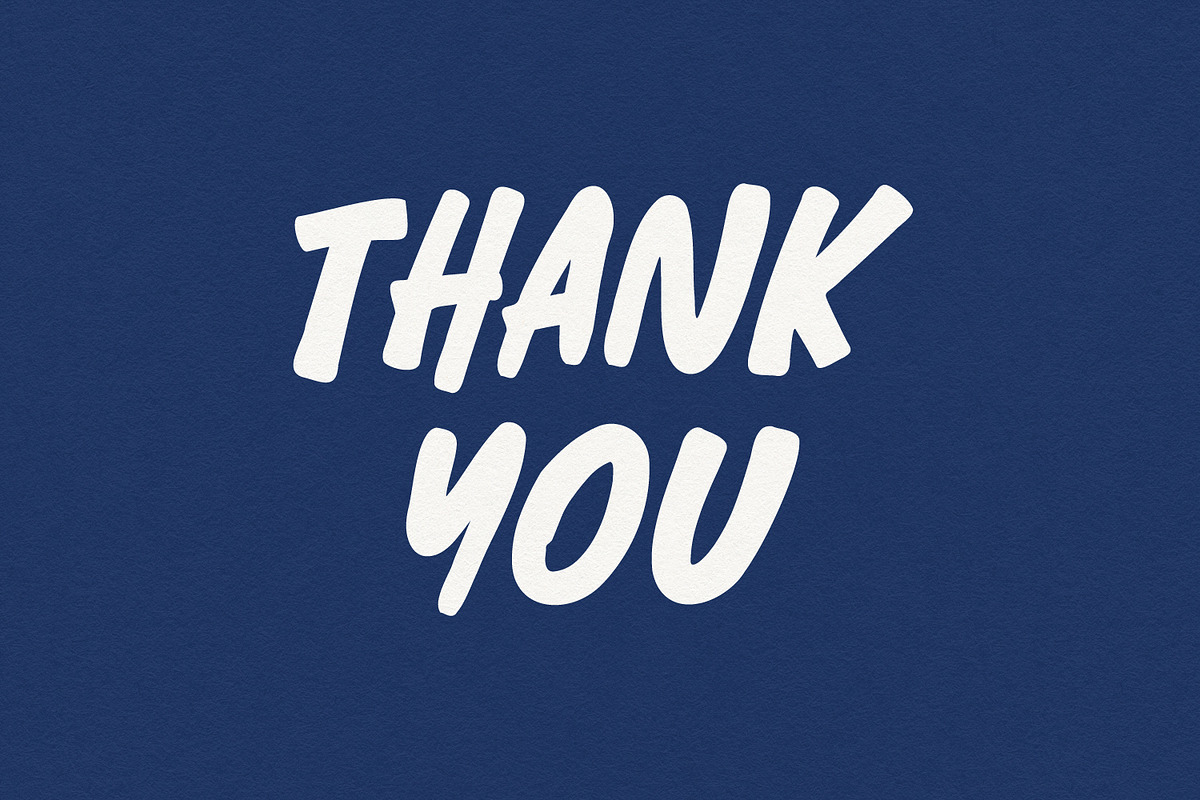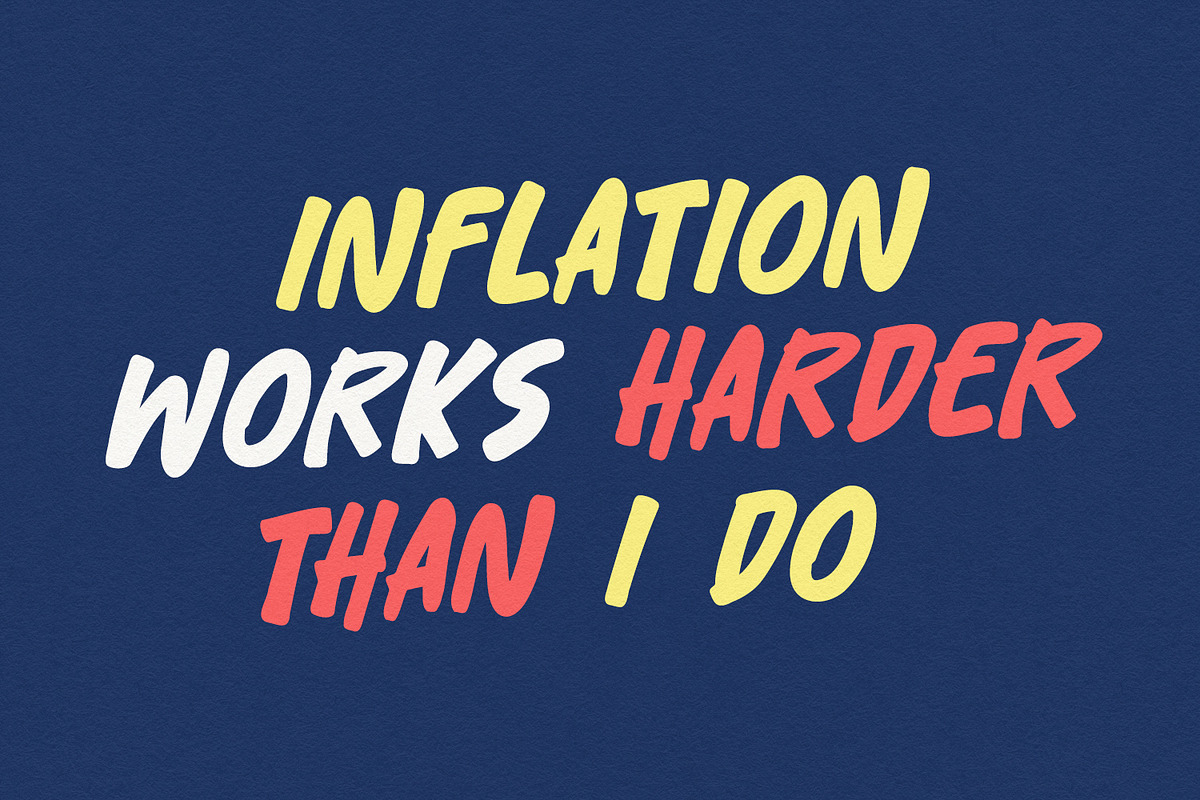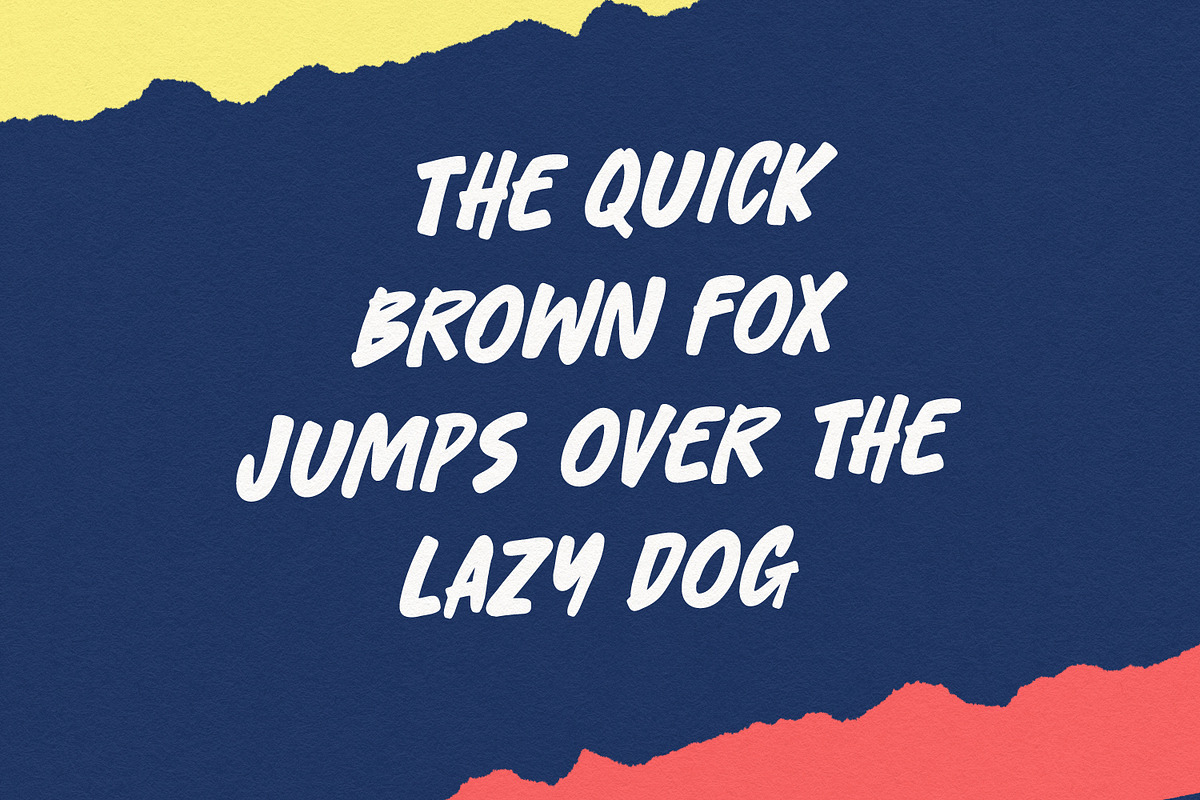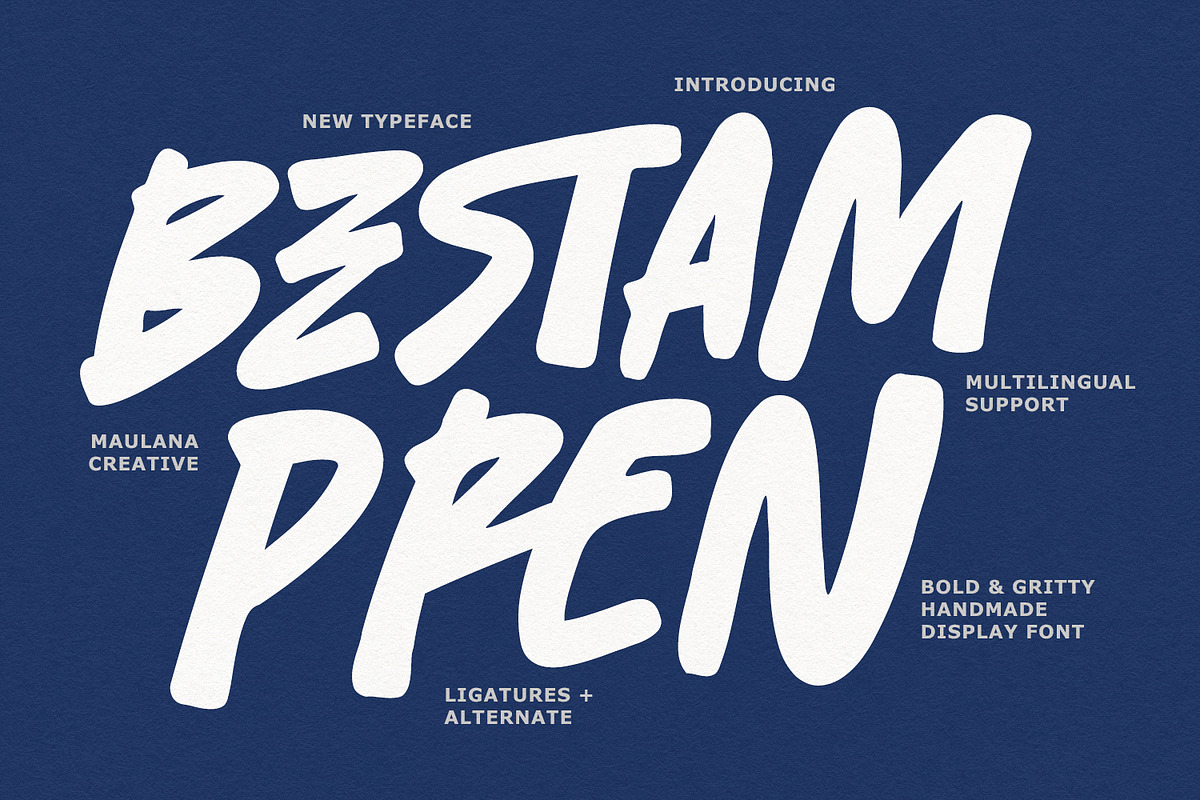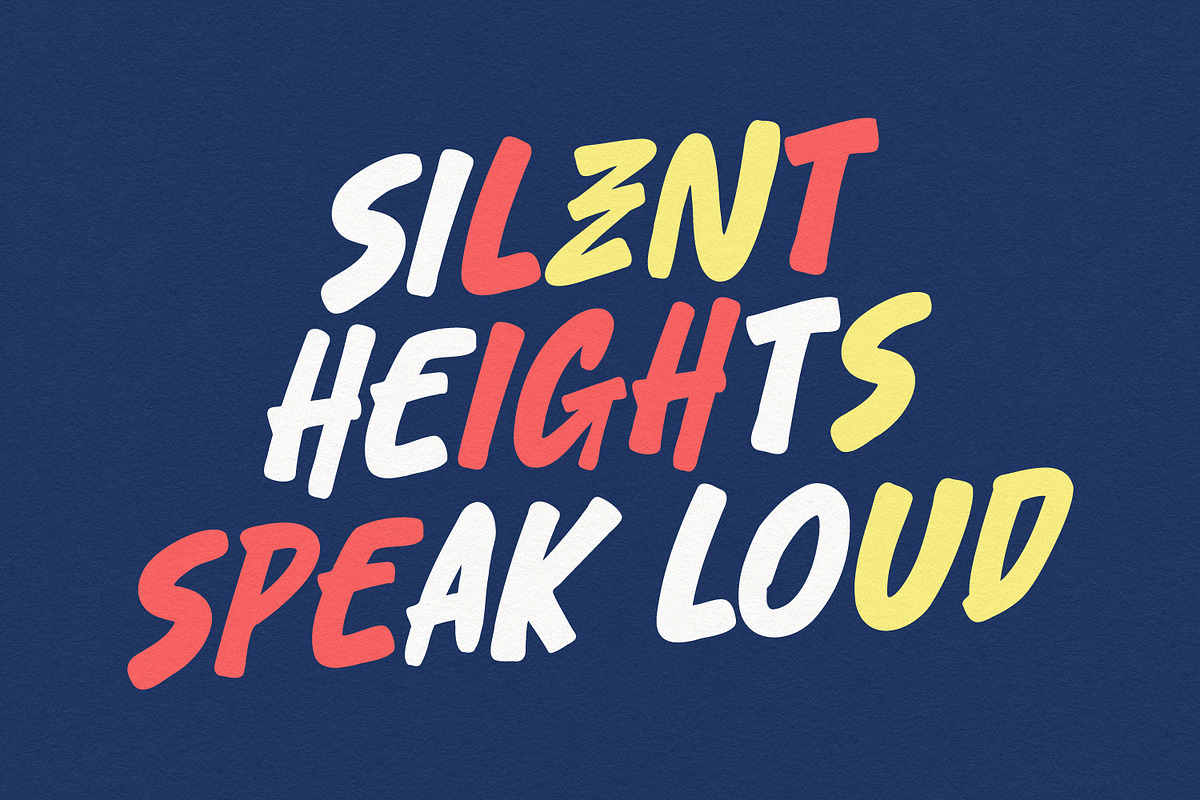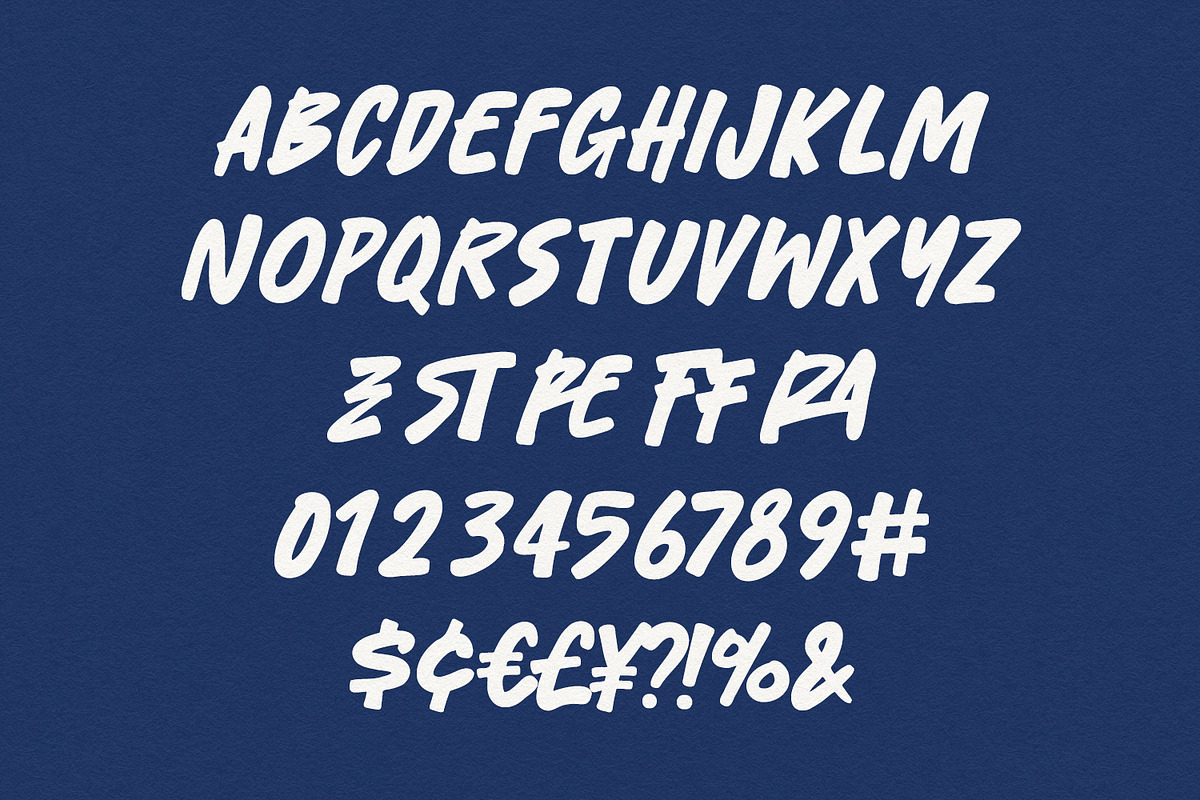
Bestam Pren Bold Gritty Handmade
Bestam Pren is a powerful, hand-drawn display font that balances raw energy with a modern, gritty aesthetic. Featuring thick, textured brush strokes and a natural "imperfect" feel, this typeface is designed to make a loud statement. It includes a variety of ligatures and alternates to ensure your designs look authentically handmade. Whether you're working on street-style branding, edgy posters, bold social media quotes, or merchandise, Bestam Pren brings a high-impact, rebellious vibe to any project.
- Ligatures and Alternate